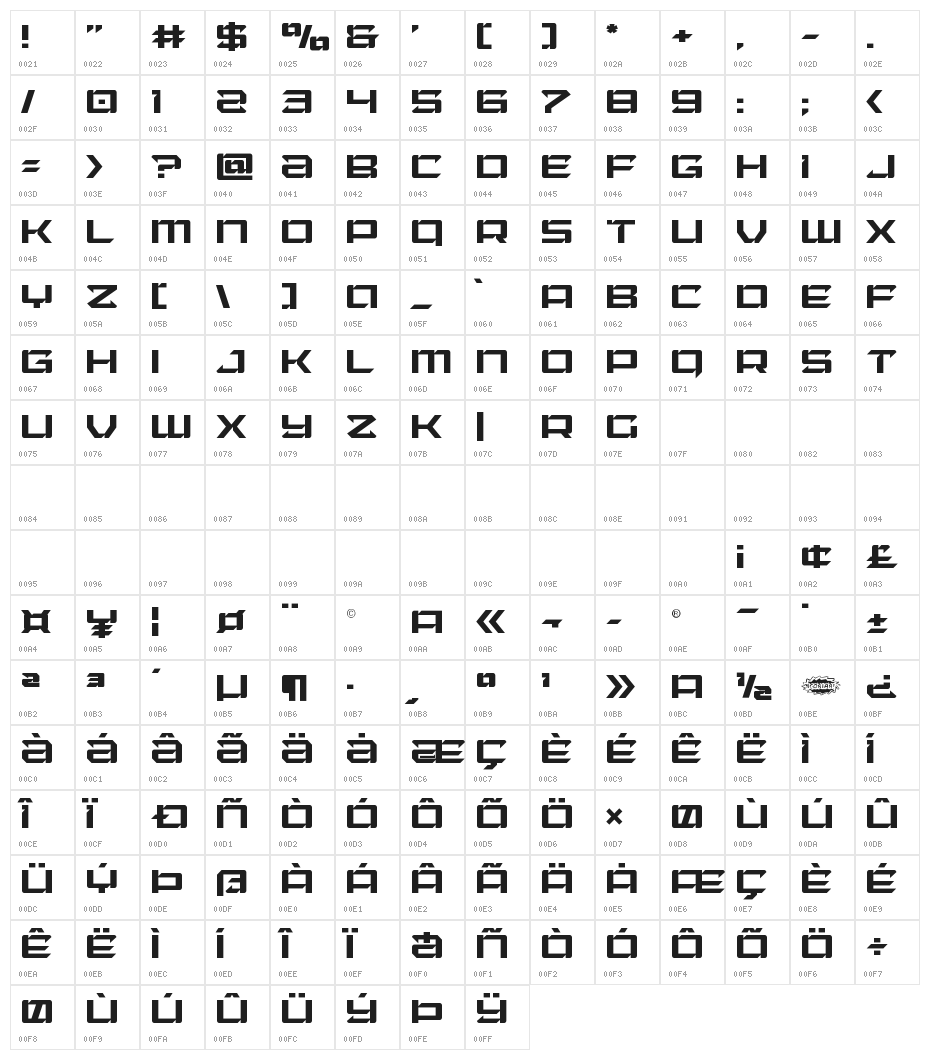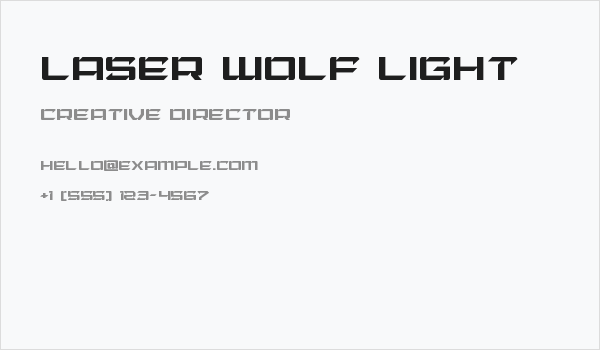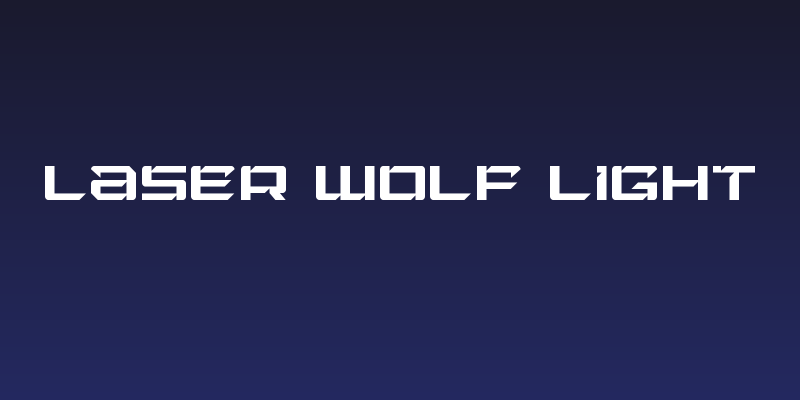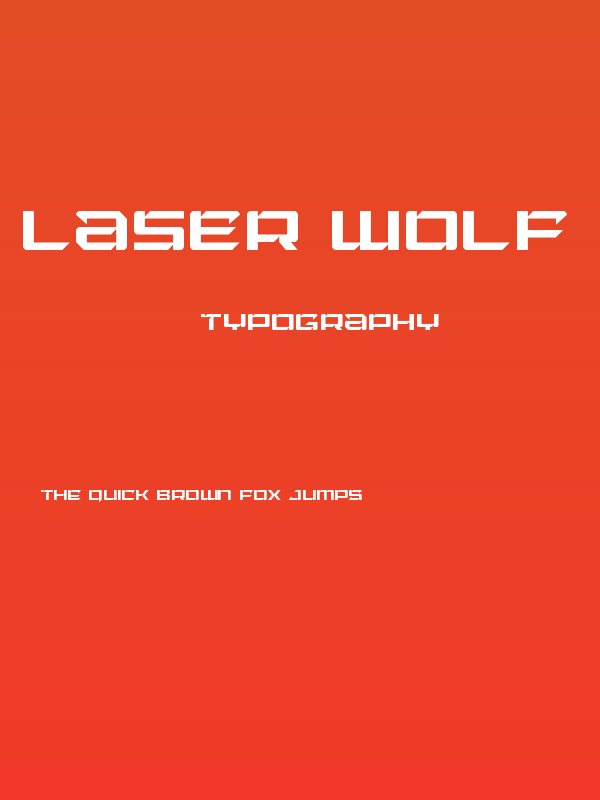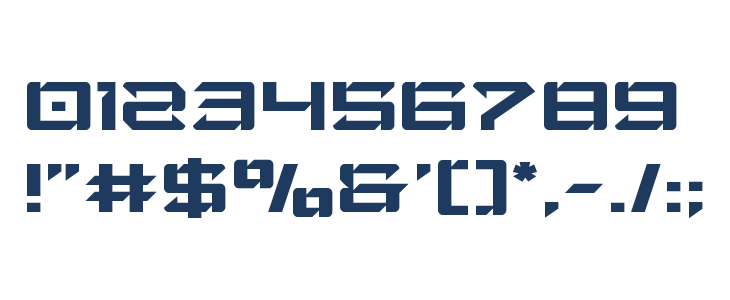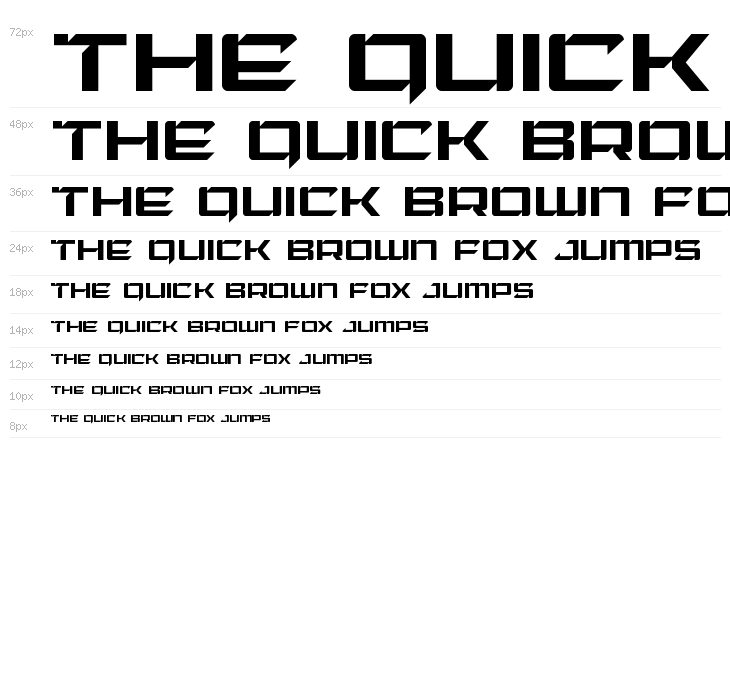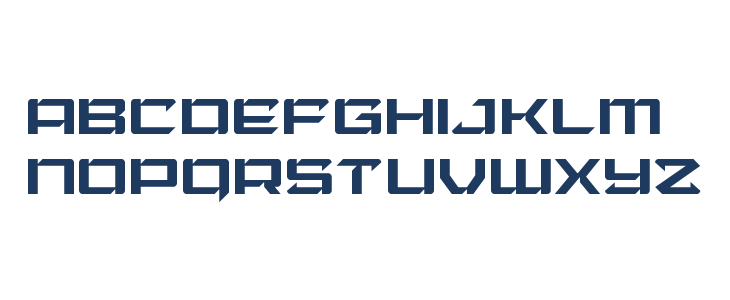
Laser Wolf Light Font
Laser Wolf Light Description
This font features a futuristic and angular design, characterized by sharp edges and geometric shapes. The uppercase and lowercase letters maintain a consistent style, with a bold and striking appearance. The numerals and special characters follow the same design principles, ensuring uniformity across all glyphs. The font's unique style makes it stand out, with a modern and tech-inspired aesthetic that is both eye-catching and distinctive. Its boldness and angularity suggest a sense of strength and innovation, making it suitable for projects that require a contemporary and edgy look.
| Proposed Projects | Ideal for technology branding, sci-fi movie posters, video game titles, and modern graphic design projects. |